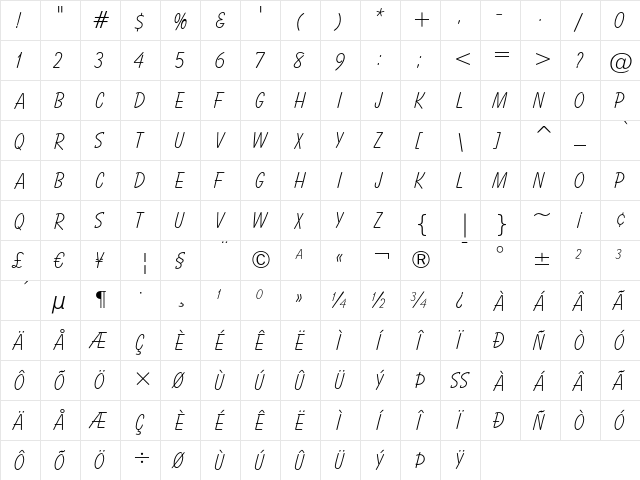
Balloon Light Font Preview
Balloon Light
Design Context for Balloon Typeface
Balloon offers clean, dependable letterforms without strong stylistic allegiance, making it a practical choice for designers who need flexibility. The delicate stroke weight brings airiness and refinement to layouts.